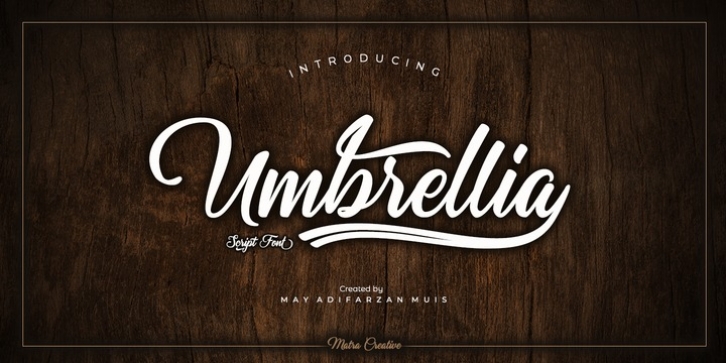
Umbrellia Script is a calligraphy script font that comes with beautiful alternative characters. mixture of handleting copper calligraphy. Designed to bring elegance to style. Umbrellia comes with uppercase letters, lowercase letters, numbers, punctuation, and so many variations on each character including OpenType alternatives, and general binders to allow you to adjust the design. Classic styles are very suitable to be applied in various formal forms such as invitations, labels, menu, logo, fashion, make up, stationery, letterpress, romantic novels, magazines, books, greeting / wedding cards, packaging, labels. Umbrellia Script has 582 glyphs. including various language support. With the OpenType feature with alternative styles, binders and characters, it allows you to mix and match pairs of letters that match your design, as well as a touch of ornament to make this font look elegant.